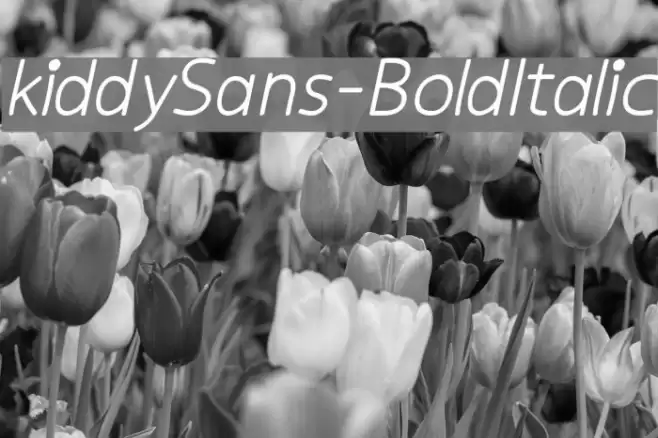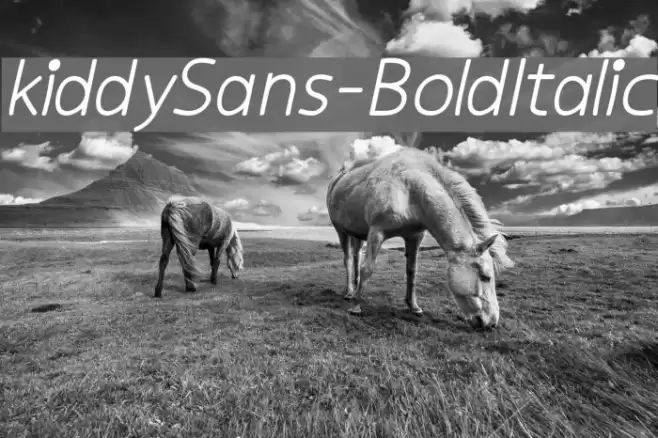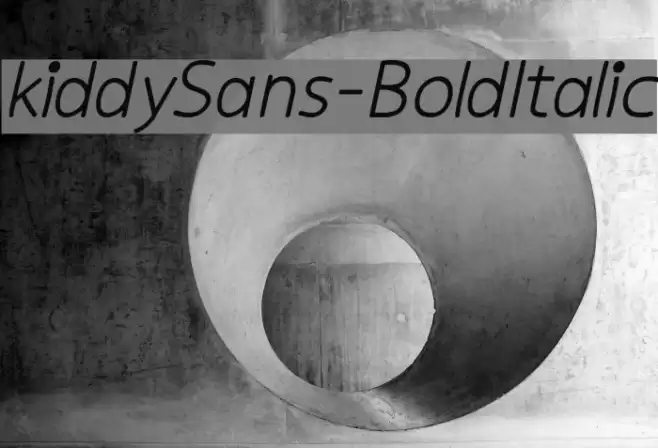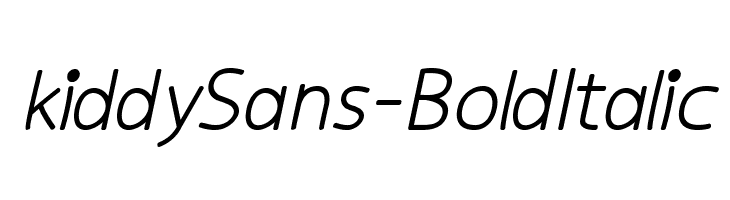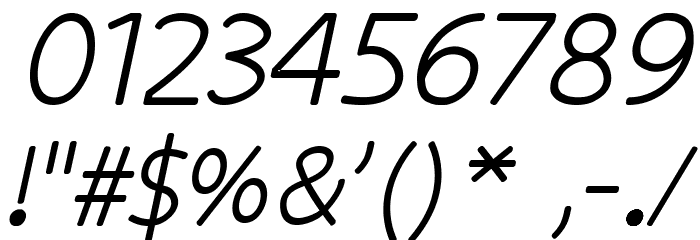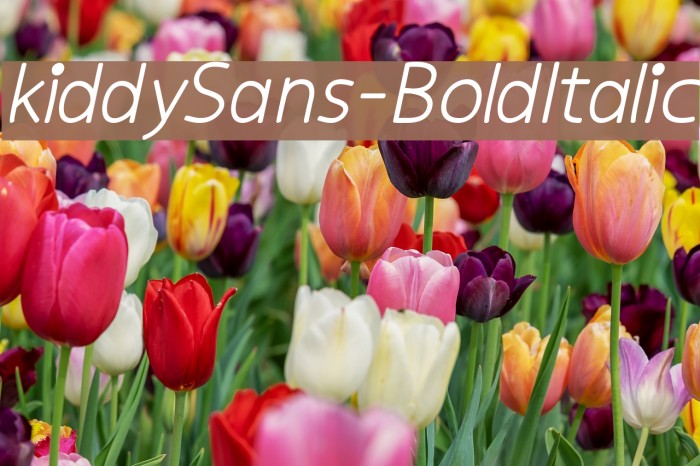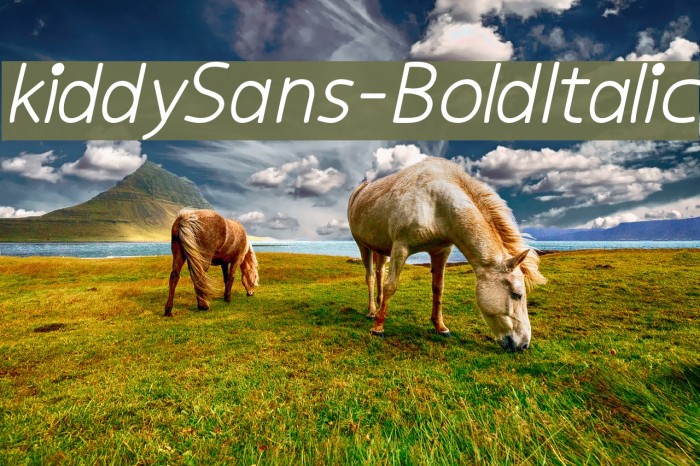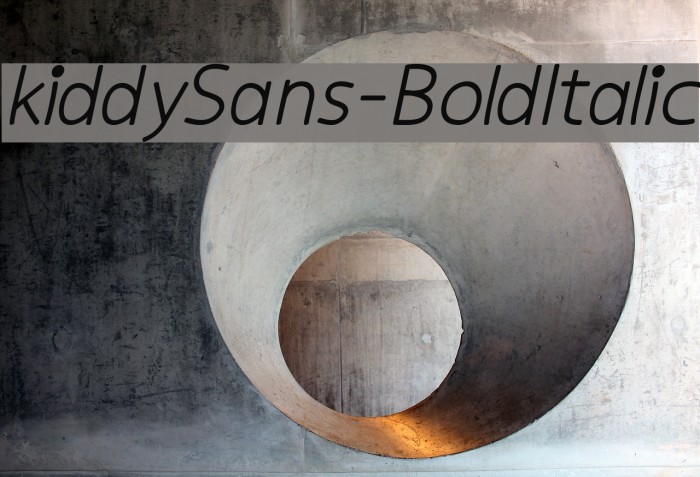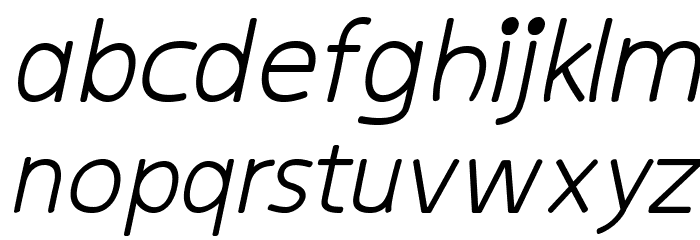
kiddySans-BoldItalic
This font exhibits a playful and modern sans-serif style with a bold and italicized appearance. The characters are smooth and rounded, offering a friendly and approachable look. The uppercase and lowercase letters maintain a consistent flow, with slightly exaggerated curves that add a whimsical touch. The numerals are clear and legible, matching the overall style of the alphabet. Special characters are well-integrated, maintaining the font's cohesive design. The italic slant adds a dynamic feel, making it suitable for creative and informal applications.
A playful, bold italic sans-serif font with smooth, rounded characters.
- Proposed Projects: Ideal for children's books, playful branding, casual invitations, and creative posters.